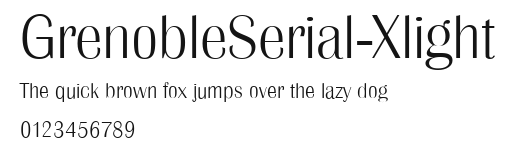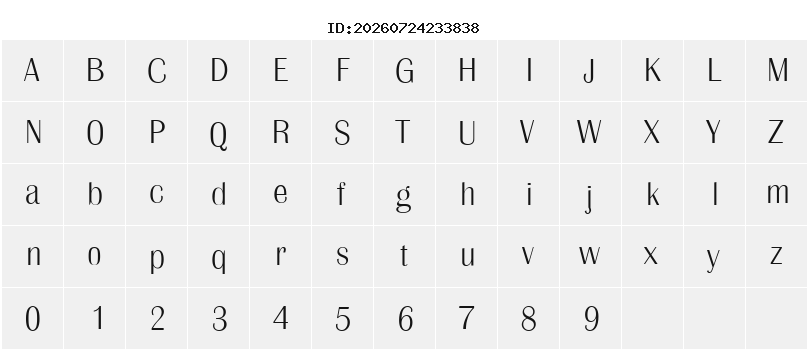
GrenobleSerial-Xlight Preview
• Font Name: GrenobleSerial-Xlight
• Font ID: SoftMaker Software GmbH GrenobleSerial-Xlight-Regular
• Full Font Name: GrenobleSerial-Xlight-Regular
• Designer: SoftMaker Software GmbH
• Manufacturer: SoftMaker Software GmbH
About GrenobleSerial-Xlight.ttf
GrenobleSerial-Xlight.ttf is a modern, elegant sans-serif font designed for ultimate readability and visual harmony. Perfect for branding, headlines, web design, and print materials.